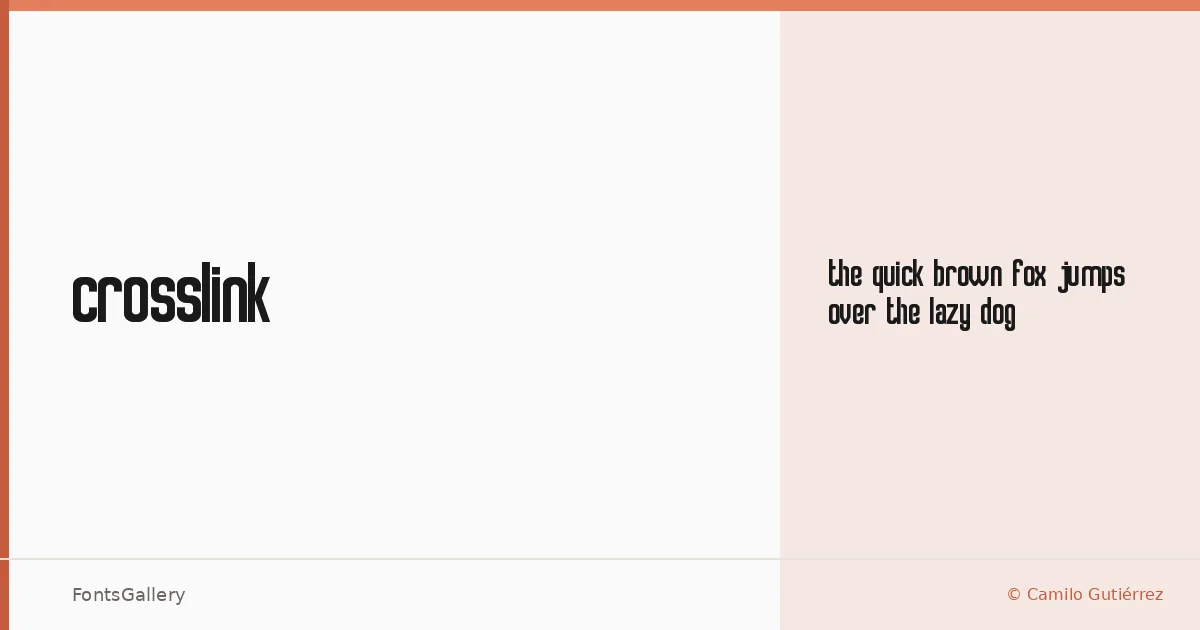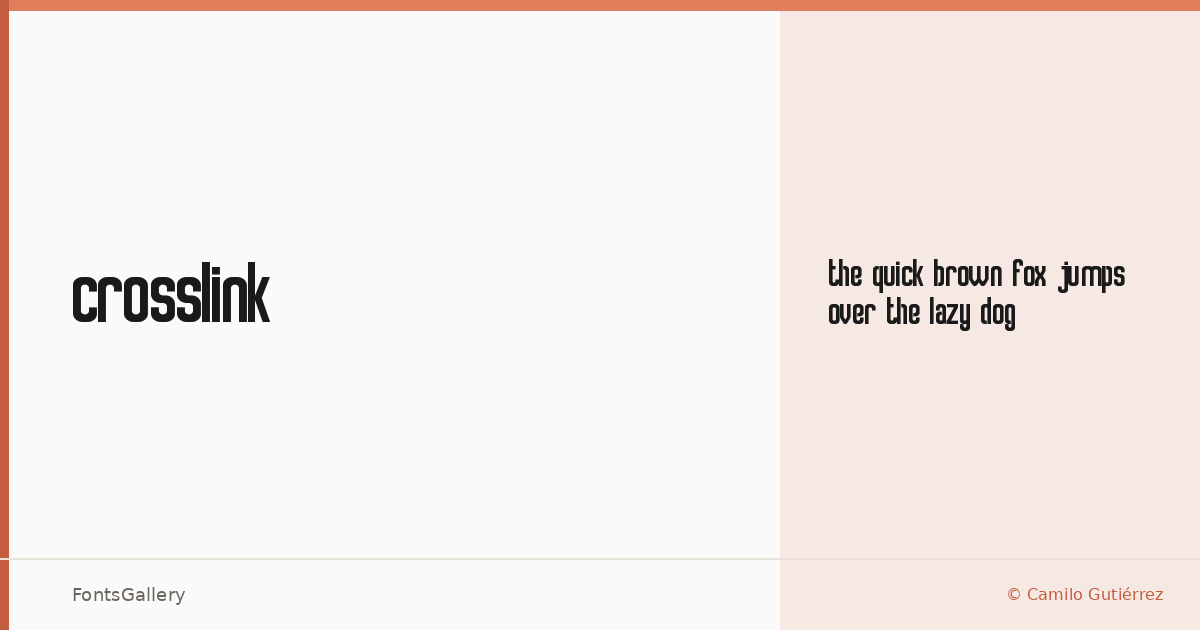
About Crosslink Font
There is something deliberately architectural about these letterforms — each character feels constructed rather than drawn, with a geometric confidence that reads as both minimal and bold at once. Crosslink is a display typeface designed by Camilo Gutiérrez, available as a single Regular Normal cut in TTF format.
The design sits squarely in futuristic territory, favoring clean structure over calligraphic warmth. Stroke relationships are tight and modern, giving the face a graphic weight that holds up at large sizes without needing embellishment. As a single-style display family, it commits fully to that bold, minimal character rather than offering a range of weights — which keeps its personality focused and unambiguous.
It earns its place in headline work, poster layouts, logo lockups, branding systems, and T-shirt design — anywhere Latin-script settings demand impact over extended reading. The face pairs well with neutral companions like Helvetica or with other display-oriented choices such as Aresink, Alexandria, Bizantheum, and Audex, where contrast in weight or structure can keep a layout from feeling monotonous.